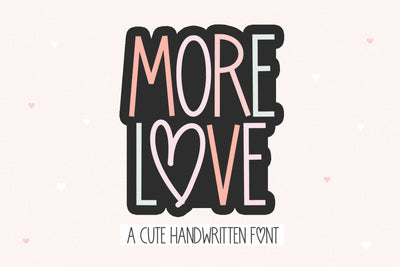
More Love - Cute Handwritten Font
More Love is a cute font that is perfect for your Valentine's Day designs - or any design!
Use special heart keys to substitute the "O" in your designs or add an embellishment - < > ~ ` ^ *